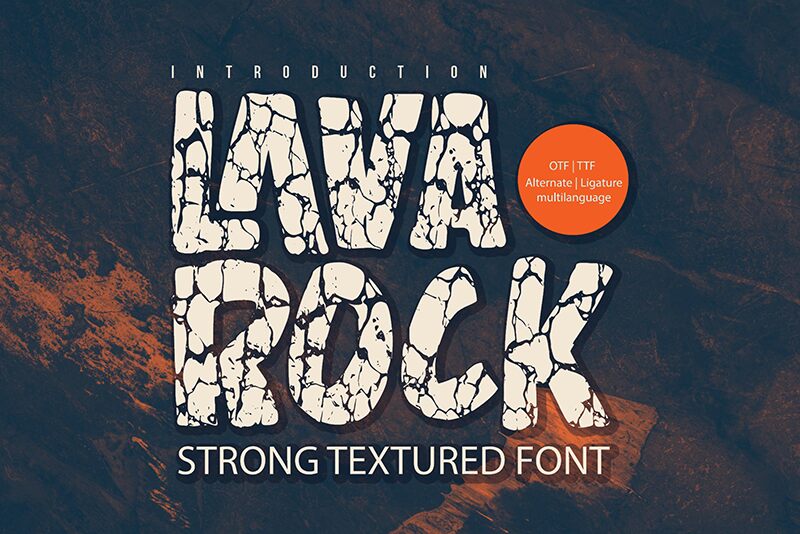
Lavarock, designed by Gassstype, is a bold, decorative font with a strong textured style and a sense of dramatic movement. Its casual and quick handwriting-like appearance makes it perfect for various projects that aim to look modern, unique, and fun.
Whether you're creating posters, designing projects, or adding labels to your products, Lavarock adds an authentic touch. It's also ideal for quotes, branding materials, packaging designs, greeting cards, websites, photography overlays, signs, scrapbooking elements, tags-the possibilities are endless!
With its natural look and distinctive characteristics, Lavarock brings a touch of authenticity to any project you undertake.